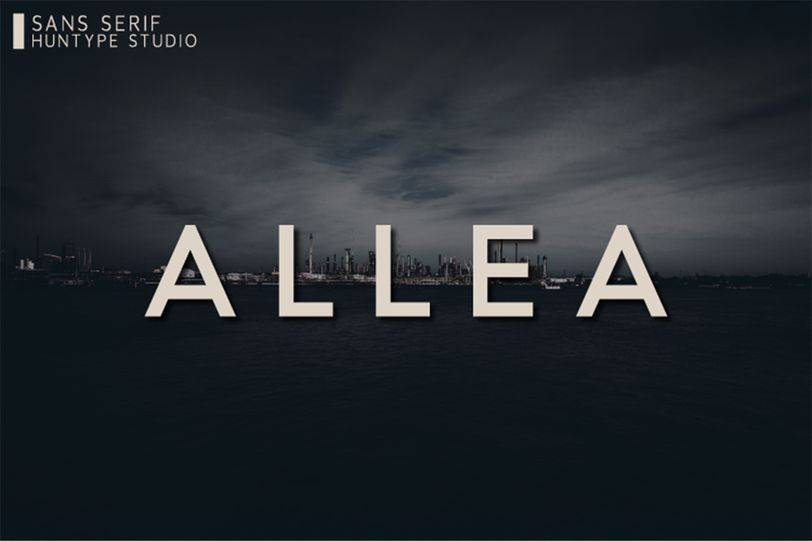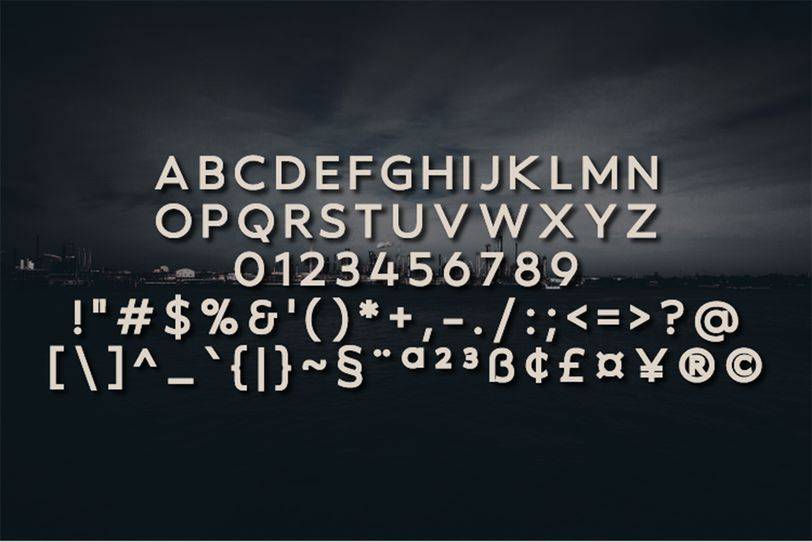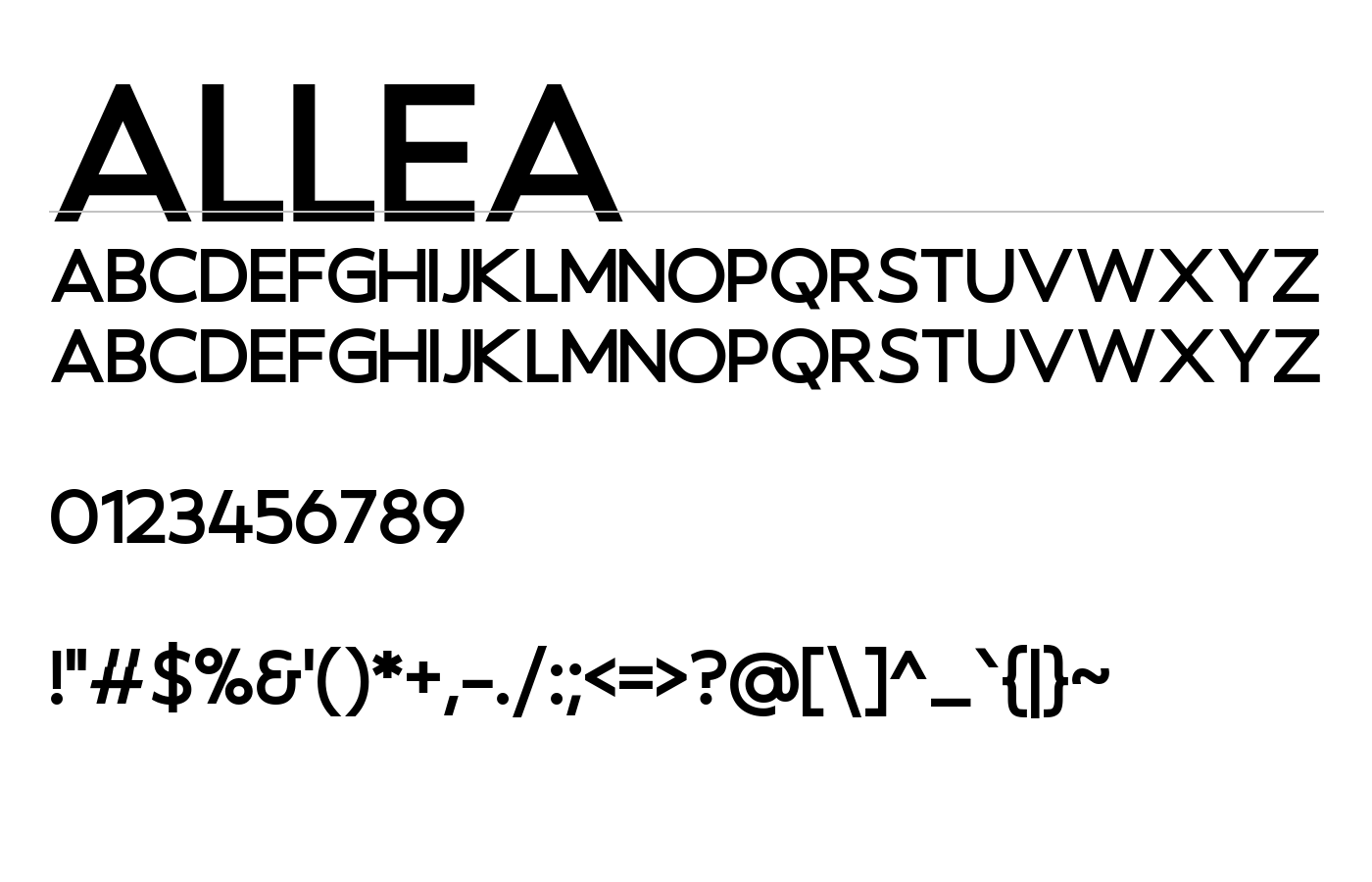
Allea is a clean and modern sans serif font characterized by its medium weight and balanced proportions, offering a clear and professional look. Its geometric shapes and moderate contrast lend it a versatile and contemporary feel, making it ideal for branding, editorial design, and digital use where readability and style are equally important. This font works well for headlines and logos that require a sleek, straightforward impression without unnecessary ornamentation.
Allea Font
About Allea Font